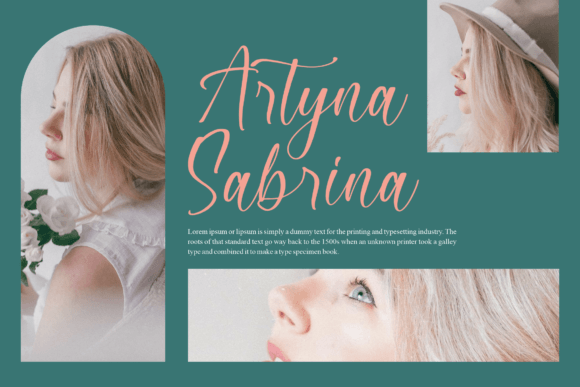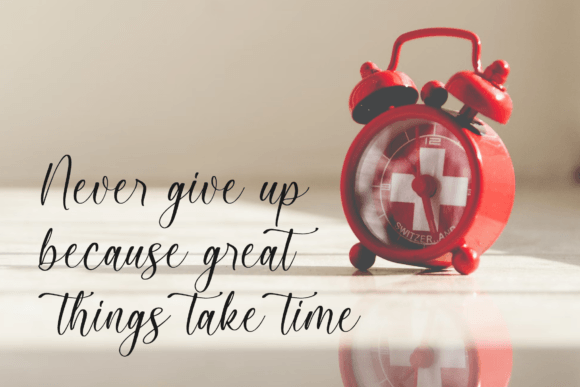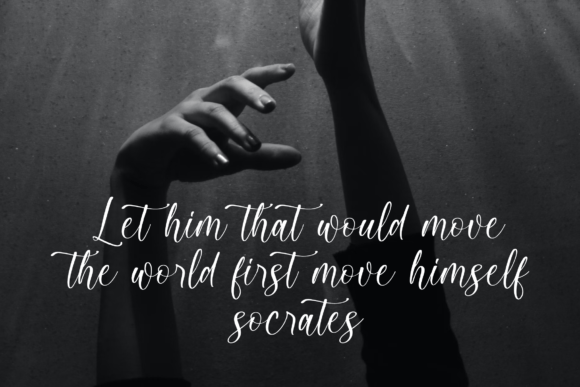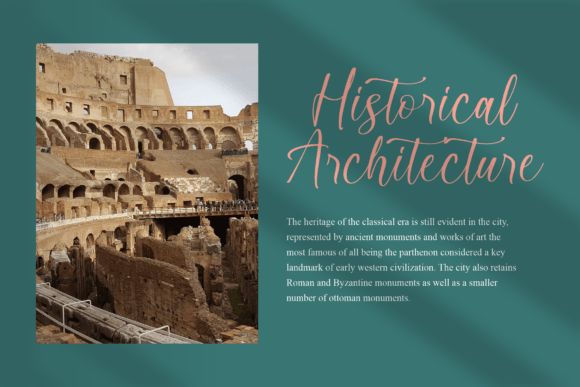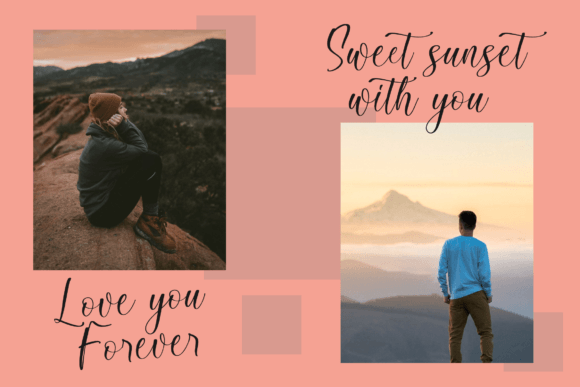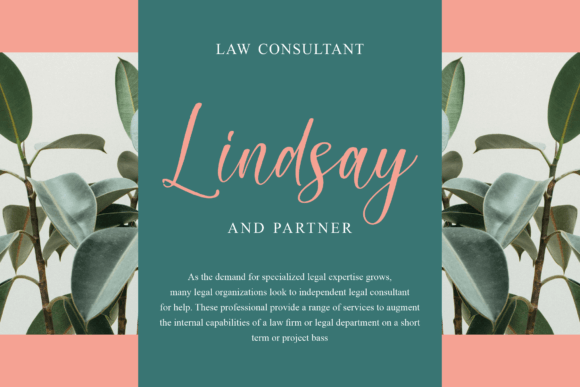
Introducing Angellica Font: Elevate Your Designs with Elegance
Are you a designer or crafter looking for a beautiful script font to add a touch of elegance to your projects? Look no further than Angellica Font, a stunning script font perfect for a wide range of applications. From logos and branding projects to homeware designs, product packaging, and more, Angellica Font is the perfect choice for anyone seeking a sophisticated and stylish script font.
What is Angellica Font?
Angellica Font is a beautiful script font designed to bring a touch of elegance and sophistication to your designs. With its flowing curves and intricate details, this font is perfect for adding a touch of luxury to any project. Whether you’re working on a logo, branding project, or simply looking for a font to add some flair to your designs, Angellica Font is the perfect choice.
What Can I Use Angellica Font For?
Angellica Font is incredibly versatile and can be used for a wide range of projects, including:
- Logos and branding projects
- Homeware designs, such as stationery and wall art
- Product packaging, including mugs, quotes, and posters
- Shopping bags and t-shirts
- Book covers and name cards
- Invitation cards and greeting cards
- Labels and photography
- Watermarks and special events
Why Choose Angellica Font?
There are many reasons why Angellica Font stands out from the crowd. Here are just a few:
- Unique and Elegant Design: Angellica Font features a unique and elegant design that will add a touch of sophistication to any project.
- High-Quality: This font is designed with high-quality and clarity in mind, ensuring that it looks great in any size or resolution.
- Easy to Read: Despite its intricate details, Angellica Font is easy to read and understand, making it perfect for use in a wide range of applications.
- Versatile: As mentioned earlier, Angellica Font is incredibly versatile and can be used for a wide range of projects.
Tips for Using Angellica Font
Here are a few tips for getting the most out of Angellica Font:
- Use it Sparingly: While Angellica Font is beautiful, it can be overwhelming if used too much. Use it sparingly to add a touch of elegance to your designs.
- Experiment with Colors: Angellica Font looks great in a wide range of colors, so don’t be afraid to experiment and find the perfect color for your project.
- Pair it with Other Fonts: Angellica Font pairs well with a wide range of other fonts, so feel free to get creative and find the perfect combination for your project.
In conclusion, Angellica Font is a beautiful script font that is perfect for designers and crafters looking to add a touch of elegance to their projects. With its unique and elegant design, high-quality, and versatility, Angellica Font is the perfect choice for a wide range of applications. Whether you’re working on a logo, branding project, or simply looking for a font to add some flair to your designs, Angellica Font is sure to impress.